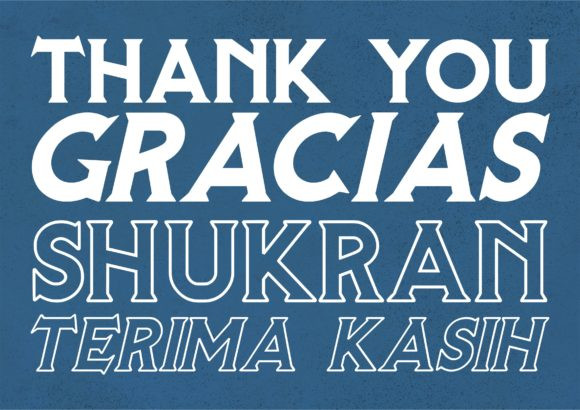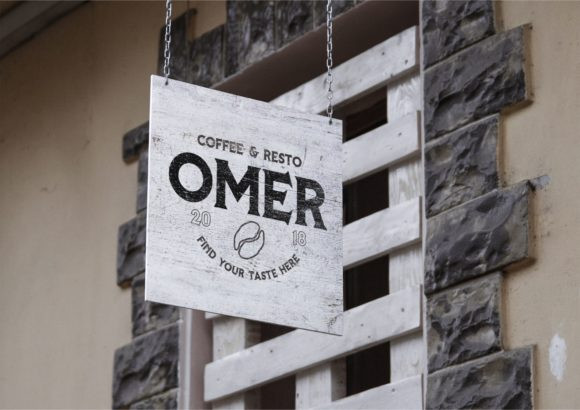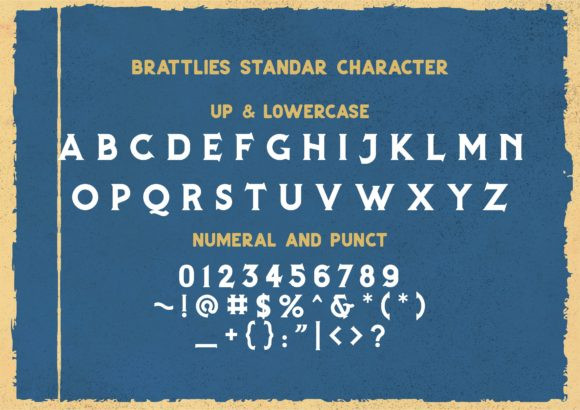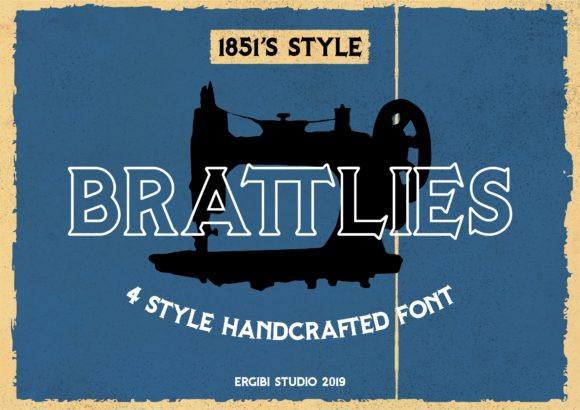
Brattlies 1851’s Font
Hello guys. This is A layered typeface with beautiful decorative ornaments which is inspired by vintage lettering sign and art. Introducing Brattlies Font. It’s designed and shared by ergibi studio. Inspired by 1851’s style, Brattlies is an elegant sans serif font with a bold twist. It’s perfect for branding projects, logo, wedding designs, social media posts, advertisements, product packaging.